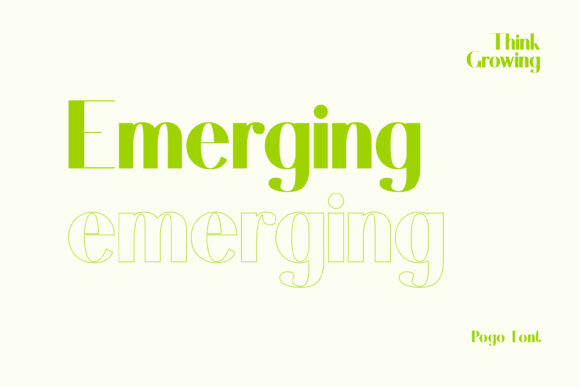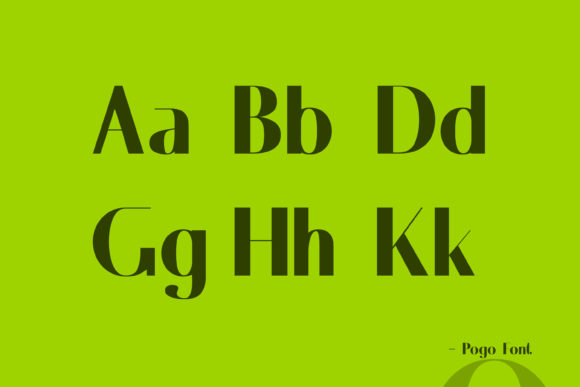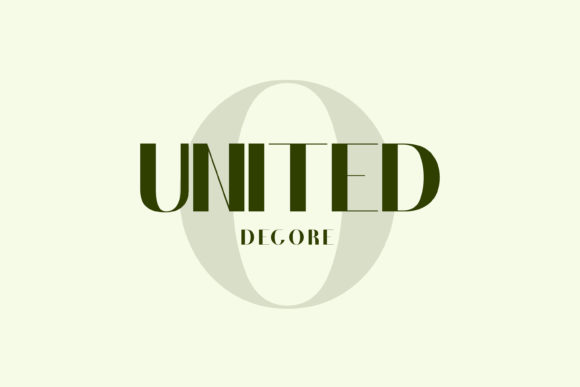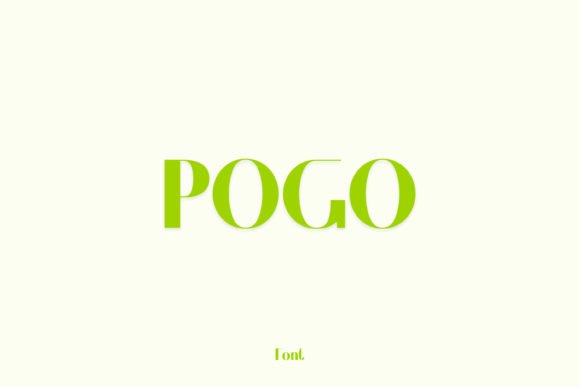
Introduction to Pogo Font
Pogo is a cool modern and bold display font.
This adaptable font will look great on a variety of design ideas It will add a fun and friendly touch to each of your projects.
Key Features of Pogo Font
Why Choose Pogo Font?
Pogo Font offers exceptional quality and versatility, making it a valuable addition to your design toolkit. Whether you’re creating for personal projects or commercial use, Pogo Font delivers professional results.